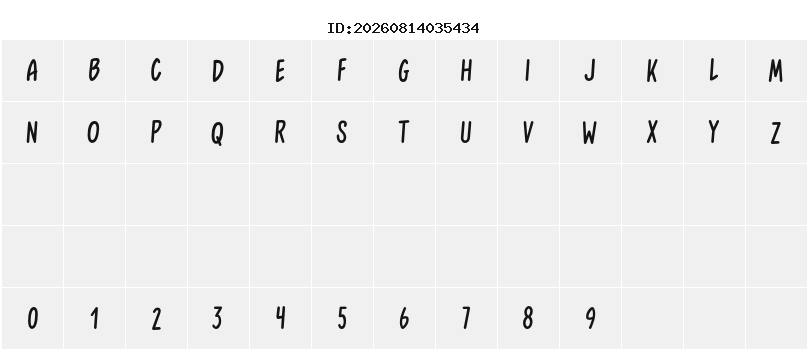
Sweet Melody Demo Preview
• Font Name: Sweet Melody Demo
• Full Font Name: SweetMelodyDemo-Bold
• PostScript Name: SweetMelodyDemo-Bold
• Manufacturer: Daniel Bak | Artcity
About Sweet Melody Demo.otf
Sweet Melody Demo.otf is a modern, elegant sans-serif font designed for ultimate readability and visual harmony. Perfect for branding, headlines, web design, and print materials.